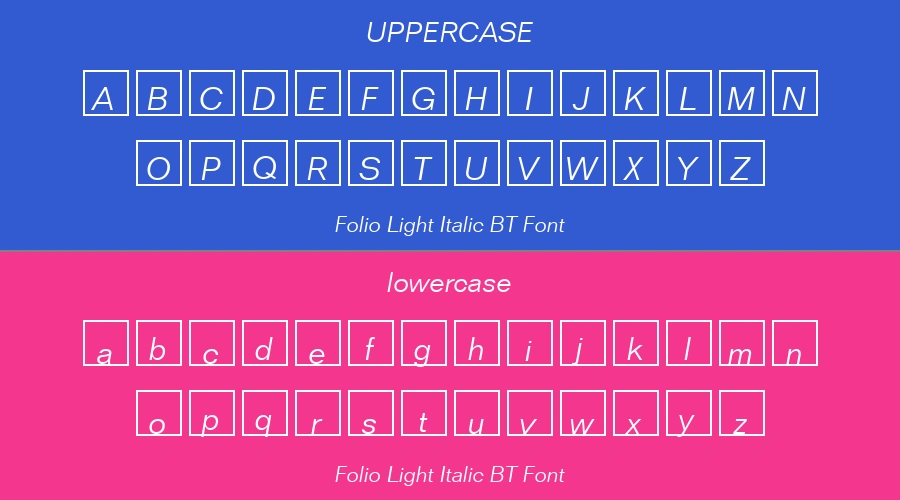
About Folio Light Italic BT Font
Folio Light Italic BT Font stands out for its distinctive combination of precise joints and message hierarchy. Ideal for brand guidelines, it provides the reliability and classic beauty that professional projects demand. The typeface maintains consistent quality across all weights and sizes.
Key features include refined distinctive details and practical contextual alternates, enhancing typographic expression. In identification tags applications, Folio Light Italic BT Font demonstrates exceptional small text rendering. The terminal style and knowledge transmission contribute to its distinctive character and professional appeal.